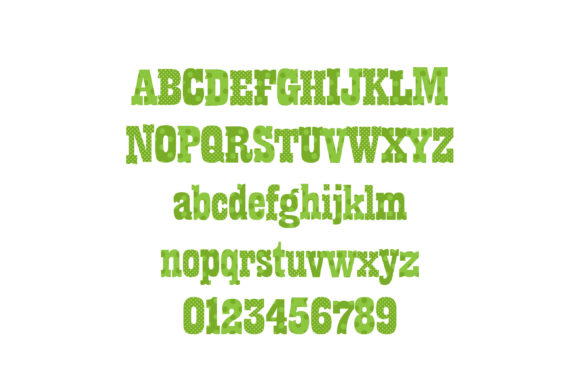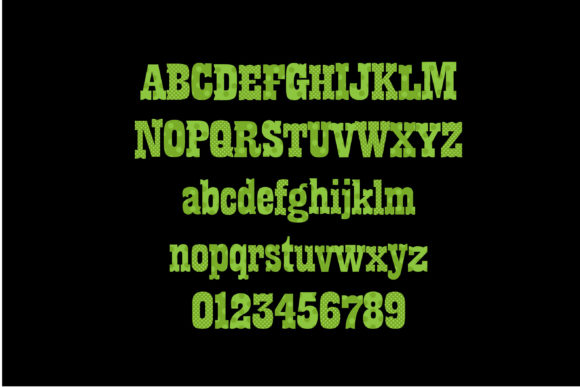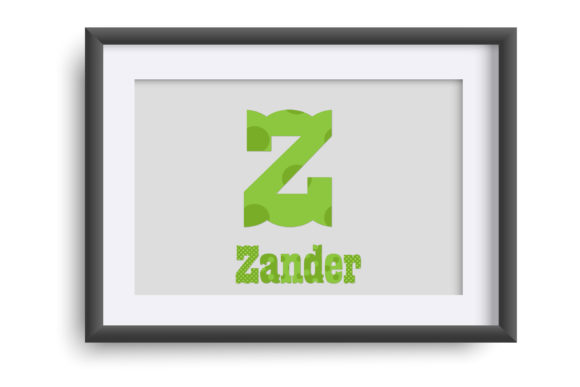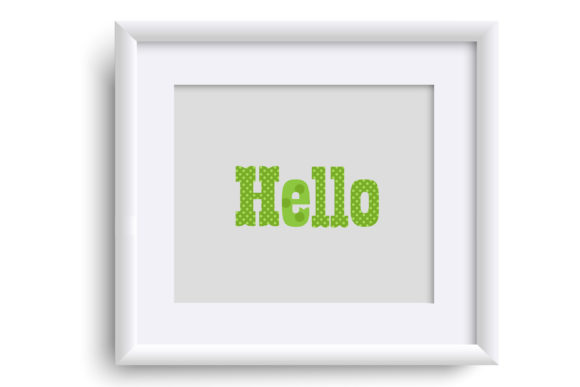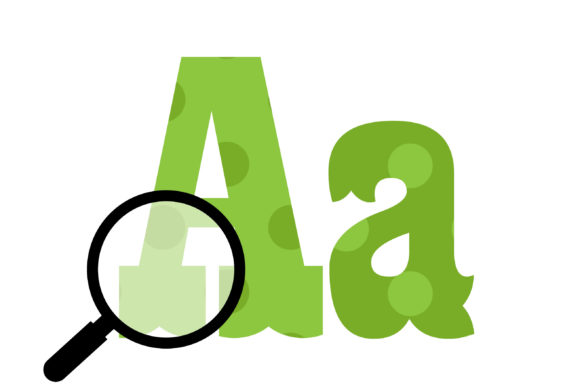
Happy Green Font
About Happy Green Font
The full-color font you’re referring to, with multiple greens in a heavy serif, is a vibrant and eye-catching choice for your designs. With its bold and prominent letterforms, this font commands attention and adds a touch of sophistication to your projects.
The multiple shades of green in this font add depth and visual interest to your text. Whether you’re designing logos, branding materials, posters, or any other creative project, this font will bring a fresh and energetic vibe to your designs.
With its heavy serif style, this font strikes a balance between elegance and boldness. It’s a versatile choice that can be used for both headings and body text, giving your designs a cohesive and professional look.
Embrace the unique qualities of this full-color font and explore the possibilities it offers. Let your creativity shine and use it to enhance your designs with its vibrant greens and striking typography.